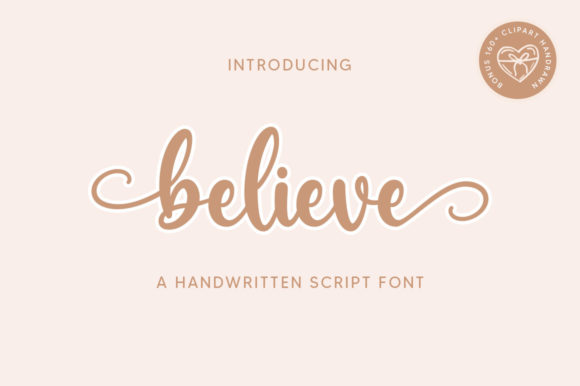
In a world of monotonous digital communication, let Believe Font weave a spell of elegance and charm into your romantic expressions. This enchanting script font, crafted by the talented hands at Graphix Line Studio, is more than just a collection of letters; it's an ode to the timeless art of love letters.
Picture this: the soft glow of candlelight illuminating a handwritten note, the gentle strokes of a pen gliding across paper, each word a delicate dance of affection. Believe Font captures this essence, transforming your digital messages into tangible tokens of love. Its playful characters, like nimble dancers, pirouette along the baseline, adding a touch of whimsy to your heartfelt expressions.
With Believe Font, you'll discover a symphony of glyphs and swashes, harmoniously encoded in PUA format. This user-friendly feature grants you effortless access to a world of creative possibilities. Unleash your imagination and adorn your love letters with intricate flourishes, delicate accents, and elegant ligatures.
Whether you're pouring your heart out in a heartfelt letter to your beloved, crafting a personalized Valentine's Day card, or designing an invitation to a romantic soirée, Believe Font will elevate your words, transforming them into visual masterpieces that speak volumes.
This font is not just a tool for communication; it's an extension of your emotions, a brushstroke that paints the canvas of your love story. With Believe Font, your words will dance off the screen, carrying with them the weight of your affection and the magic of true connection.
So, embrace the allure of Believe Font, let your heart guide your fingertips, and weave a tapestry of love that transcends the digital realm. Because in the symphony of love, words are the notes, and fonts are the instruments that orchestrate a beautiful melody.